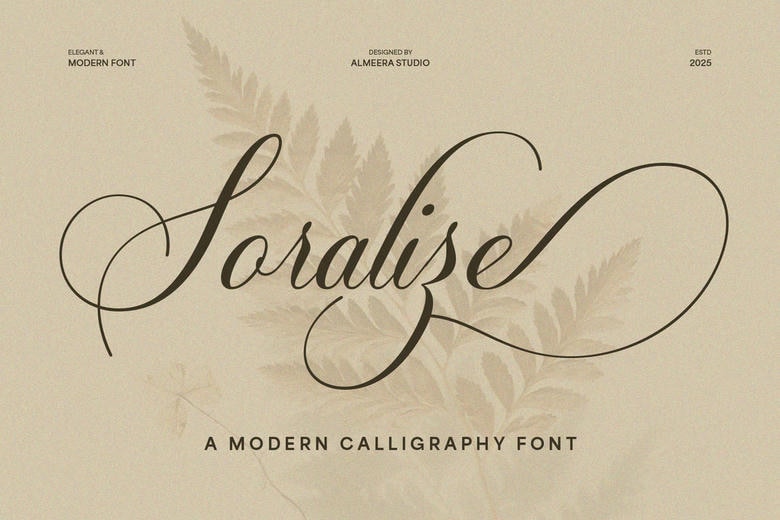
Soralize Font
Soralize is actually a very stylish and contemporary calligraphy font that infuses class and elegant artwork into all designs. Soralize is ideal wedding invitation, luxury branding, feminine logos, greeting cards, fashion labels, and signature designs have flowing lines and swashes, gentle touches and finishes, delicate ligatures masquerading as genuine hand-lettering.
It is a multifunctional font of script style that includes a classical but at the same time a modern effect, which is why the font will make your typography exceptional with a unique beauty and sophisticated flair. Soralize is designed in such a way that it evokes something warm, genuine, and even a bit artistic, which makes it one of the key resources that could be used by the designers when they need the handwriting style that is both expressive and elegant.
Soralize Calligraphy Script Font